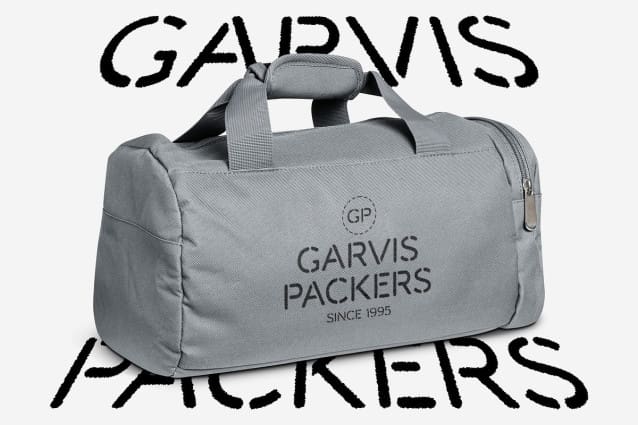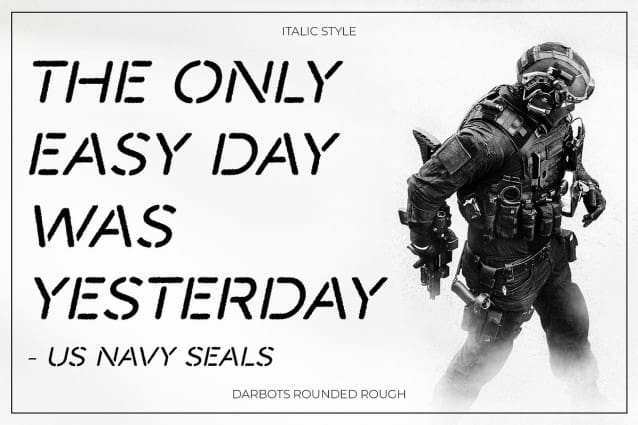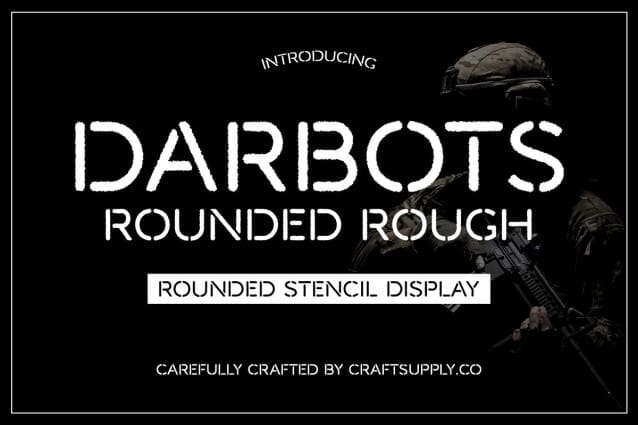
Darbots Rounded Rough Font
Darbots Rounded Rough Font is a modern sans-serif font that combines clean, geometric shapes with a stencil-inspired design and a rugged texture. The font’s stencil-like cutouts introduce a functional, industrial feel, while its rounded edges provide a soft and approachable look, blending modernity with a touch of rugged charm.
Geometric and Industrial Feel Experience the balance of industrial and modern aesthetics with this font. The stencil cutouts give the font a distinctive, functional edge, perfect for designs requiring an industrial vibe. Meanwhile, the rounded edges soften the overall appearance, making it versatile for a variety of applications.
Rough Texture for Visual Interest The rough texture of this rounded rough font adds a unique, slightly weathered appearance to the font. This rugged detail enhances its visual interest and sets it apart from more traditional designs, making it ideal for creative projects and branding that need a touch of individuality.
Versatile for Creative and Industrial Designs This rounded rough font is well-suited for a range of design needs, from branding and creative projects to industrial-themed graphics. Its blend of modern geometric shapes, functional stencil elements, and rugged texture ensures it stands out in any context where a balance of contemporary style and durability is desired.